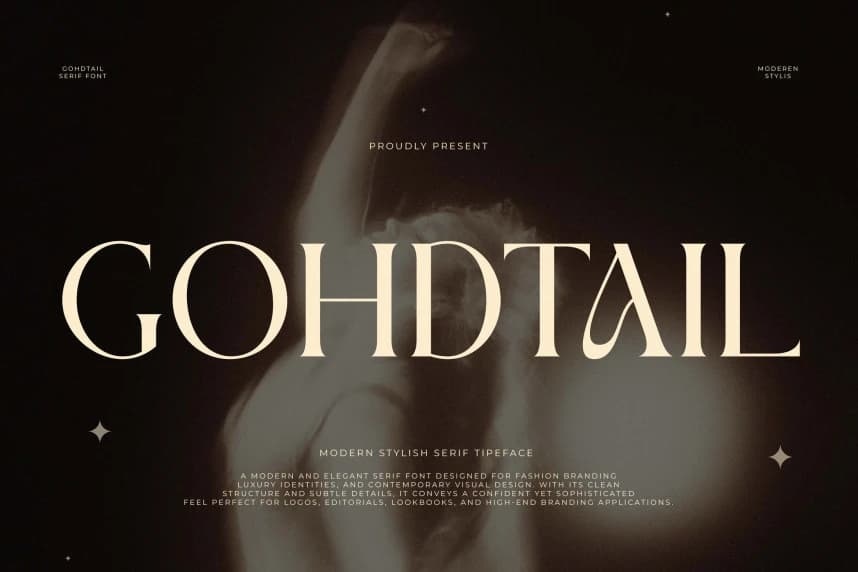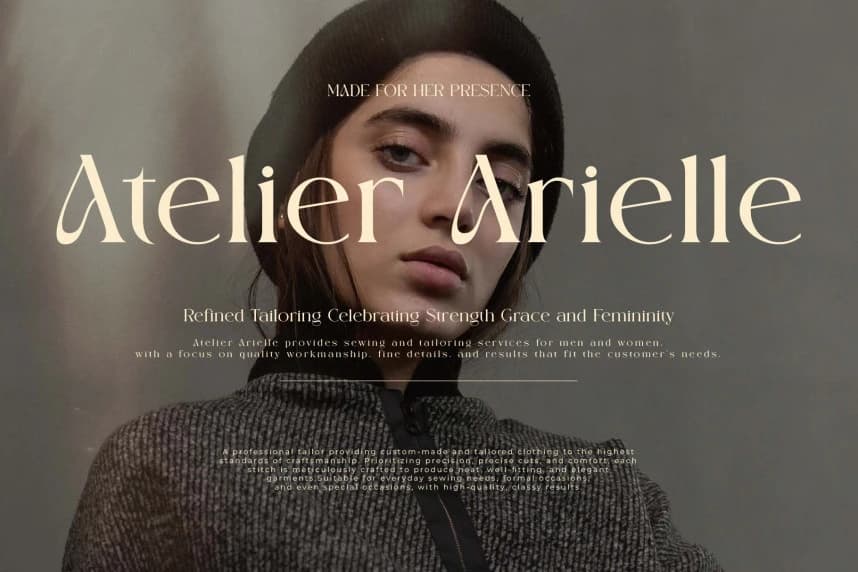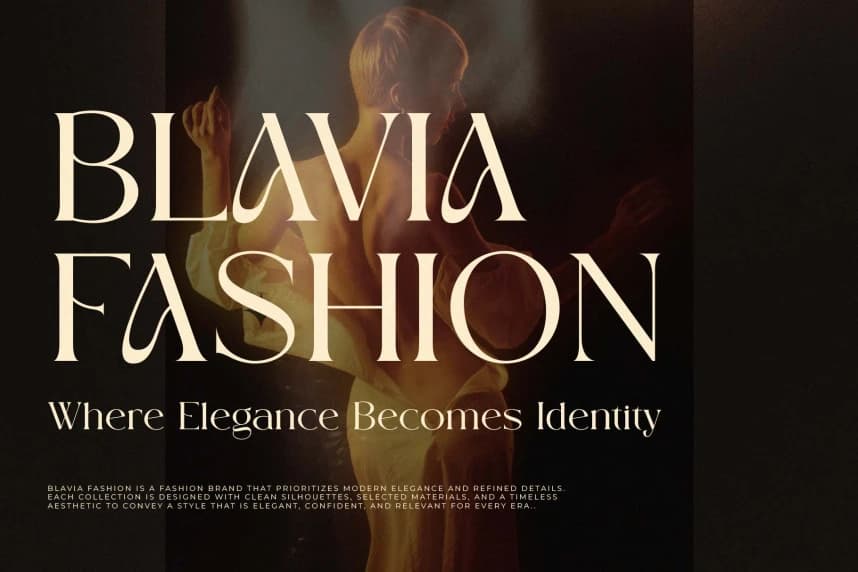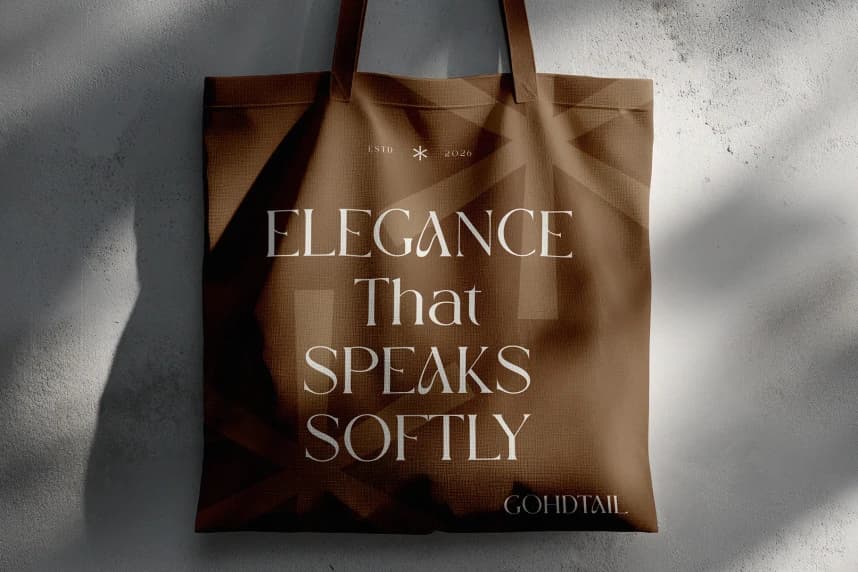
Gohdtail Font
Gohdtail Font, a modern stylish serif that captures a “refined-and-radiant” soul. This typeface features elegant, high-contrast letterforms characterized by rhythmic, sweeping curves and subtle, sharp terminals that bridge the gap between classic editorial heritage